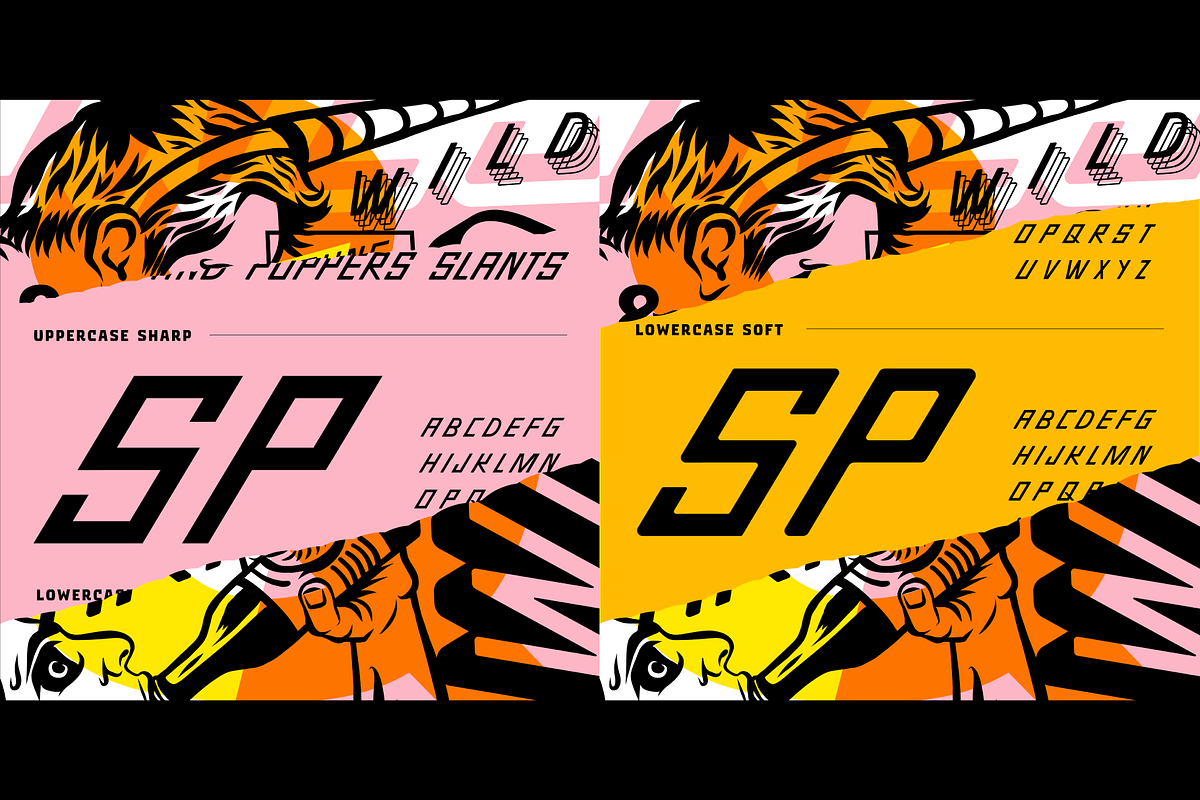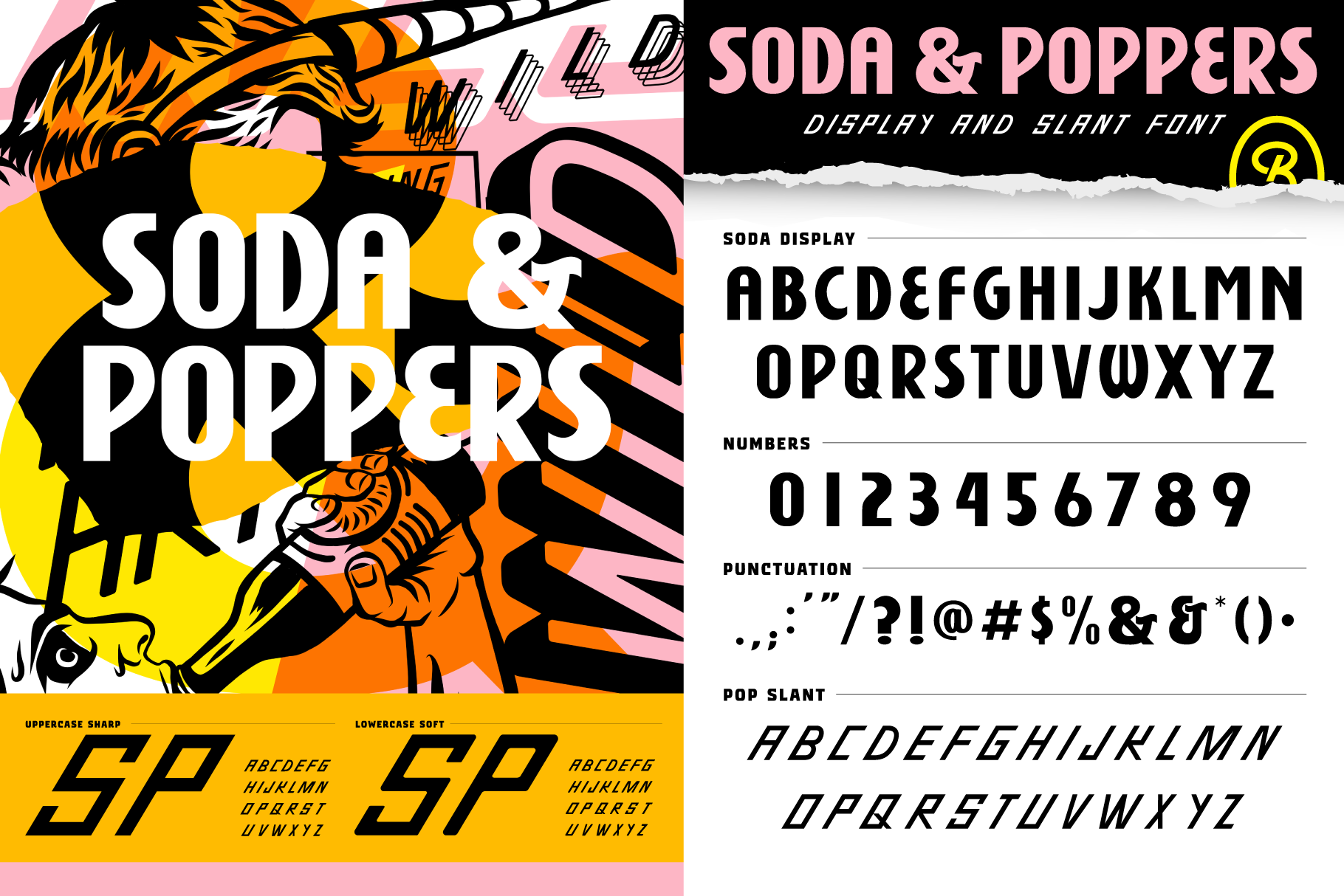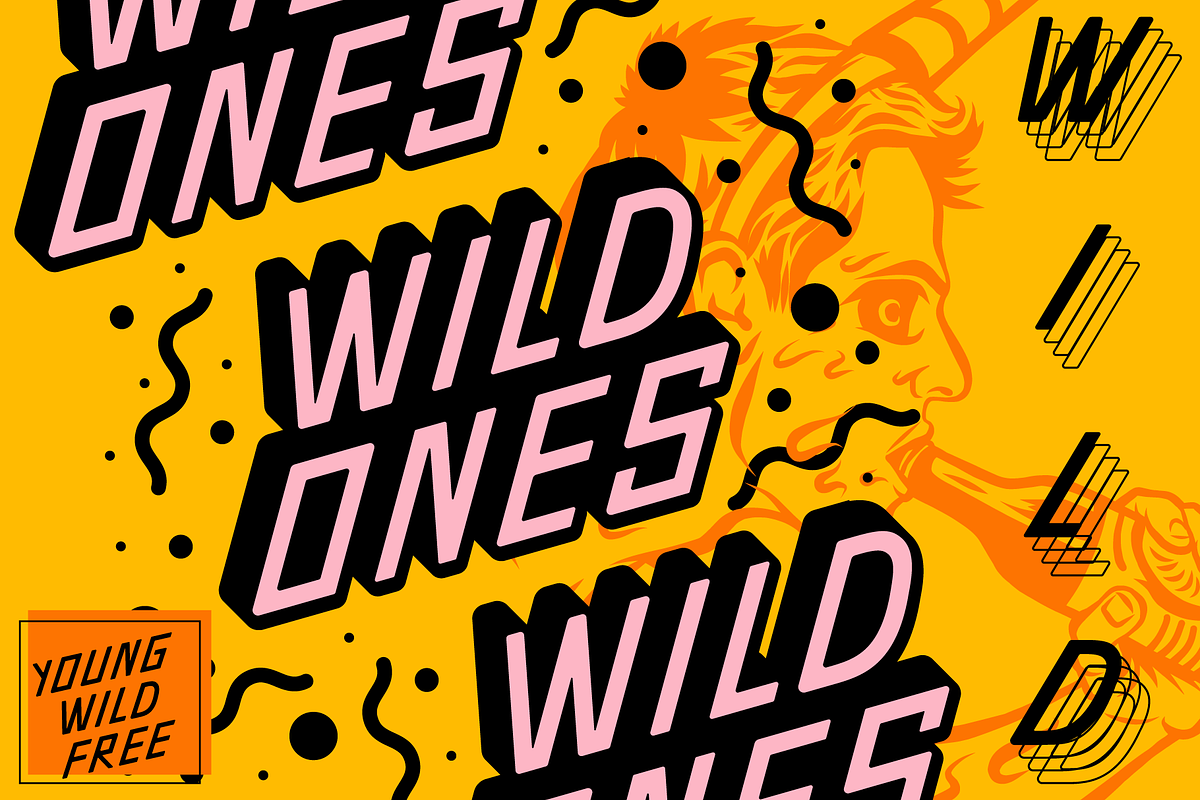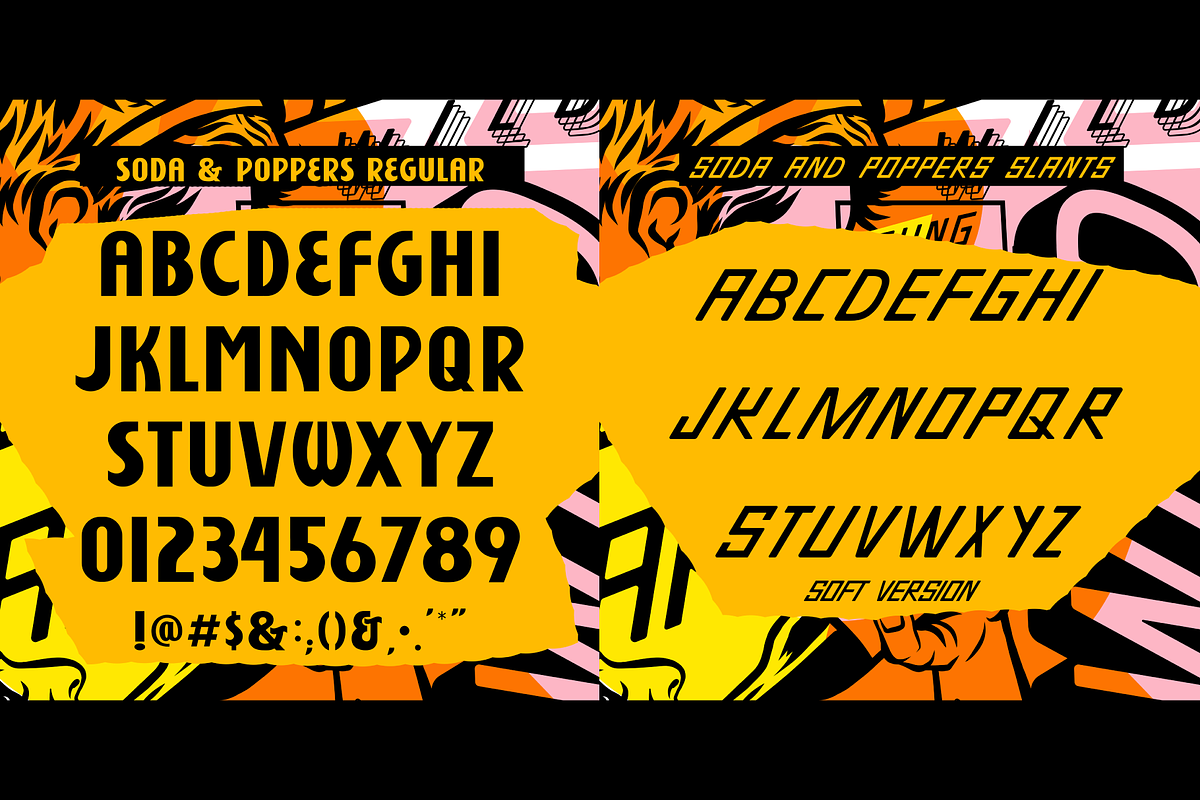
Soda and Poppers Display Font
A Display and Slant font pairing that is a little weird but aren’t we all? Go design and be young, wild and free. The slant version has sharp and round alternating with caps lock on or off.